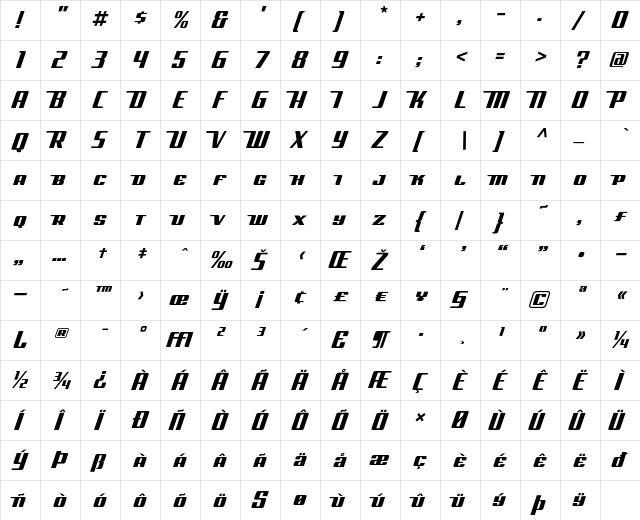
Bullet SpeedCaps
Design Context for Bullet Typeface
Bullet is a composed and adaptable typeface that performs quietly and consistently across a wide range of design contexts.